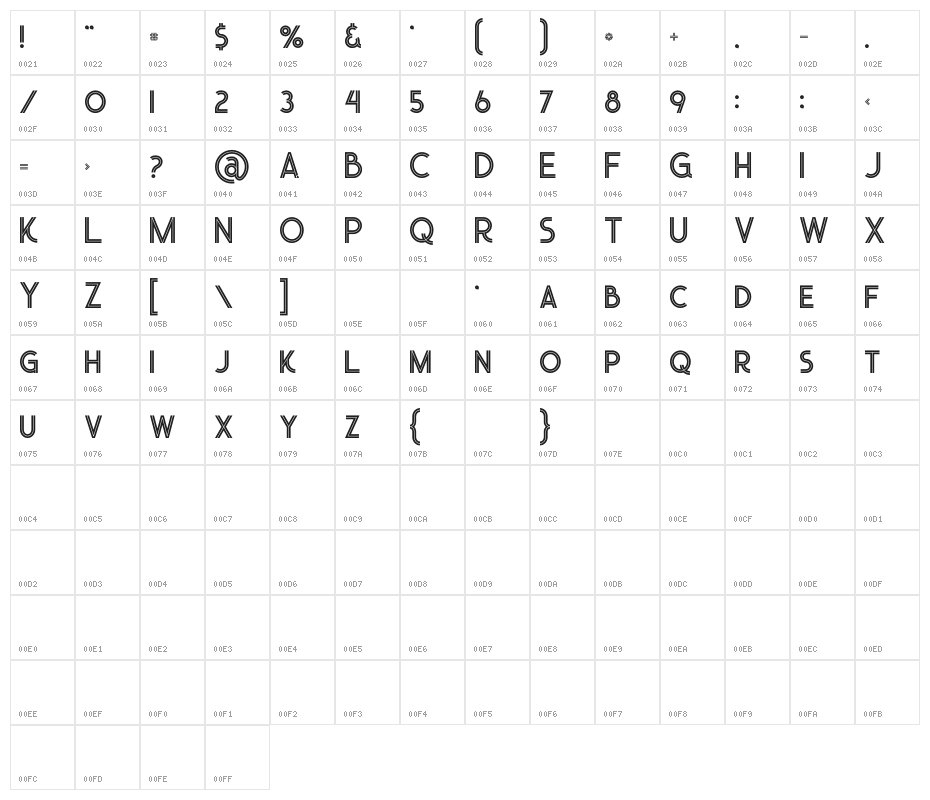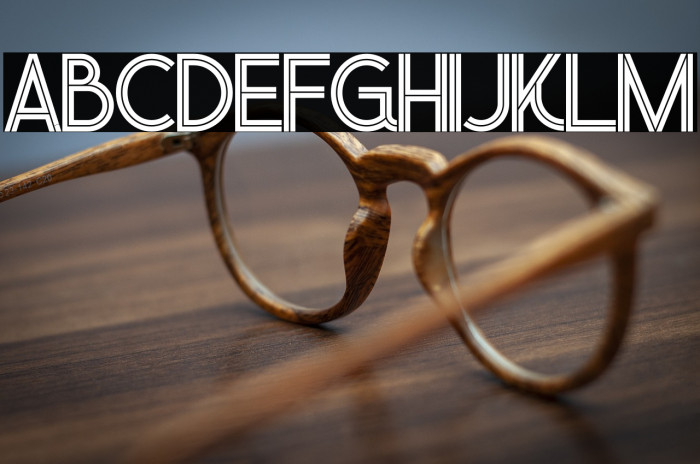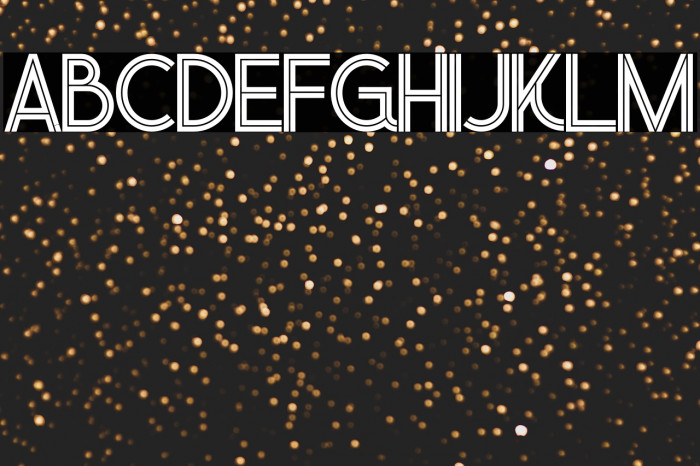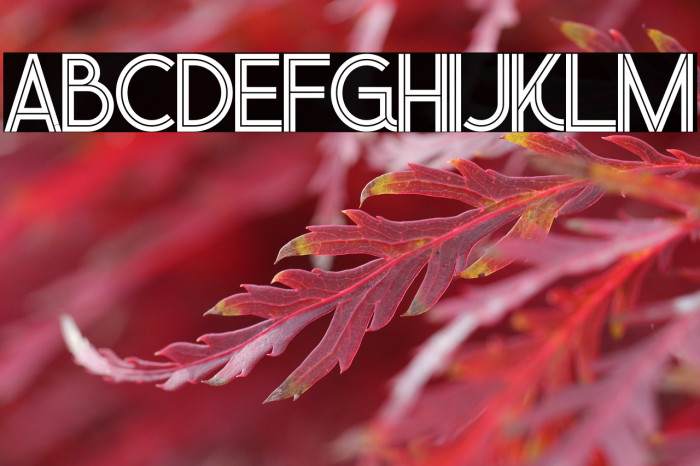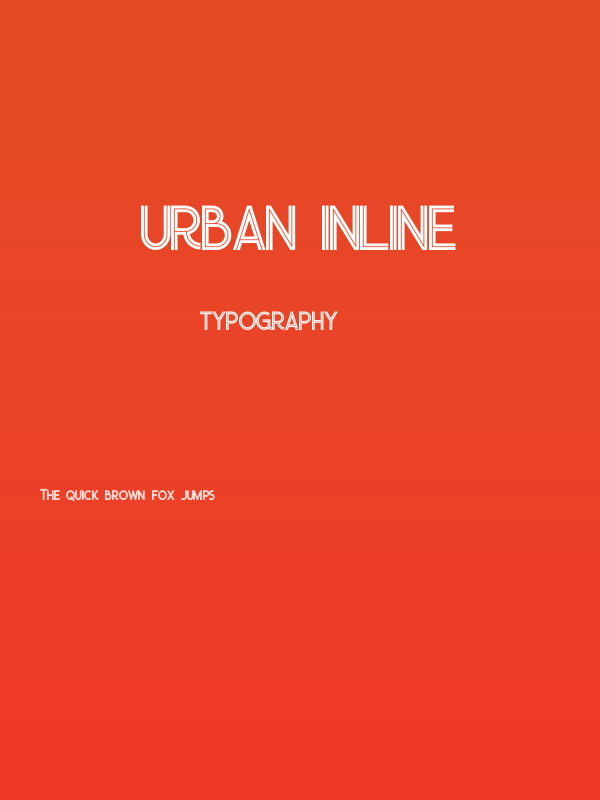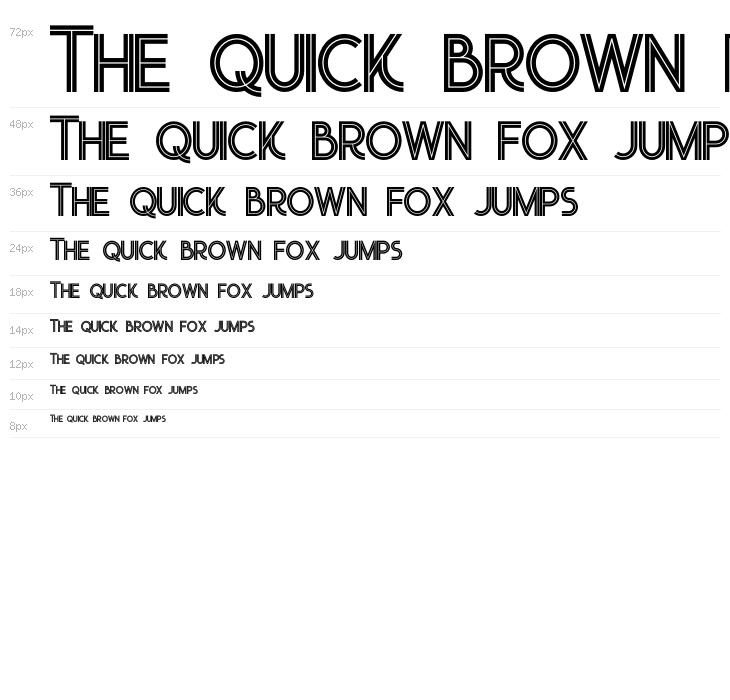
Urban Inline Font
Urban Inline Description
This font features a bold, geometric design with a distinctive inline style that creates a sense of depth and dimension. The uppercase letters are characterized by clean, straight lines and sharp angles, giving them a modern and futuristic appearance. The numbers and special characters maintain this geometric consistency, ensuring a cohesive look across all glyphs. The inline detail adds a unique touch, making the font stand out in any design. Its structured form and bold presence make it ideal for eye-catching headlines and display purposes.
| Proposed Projects | Ideal for branding, posters, headlines, and any design requiring a modern, eye-catching typeface. |